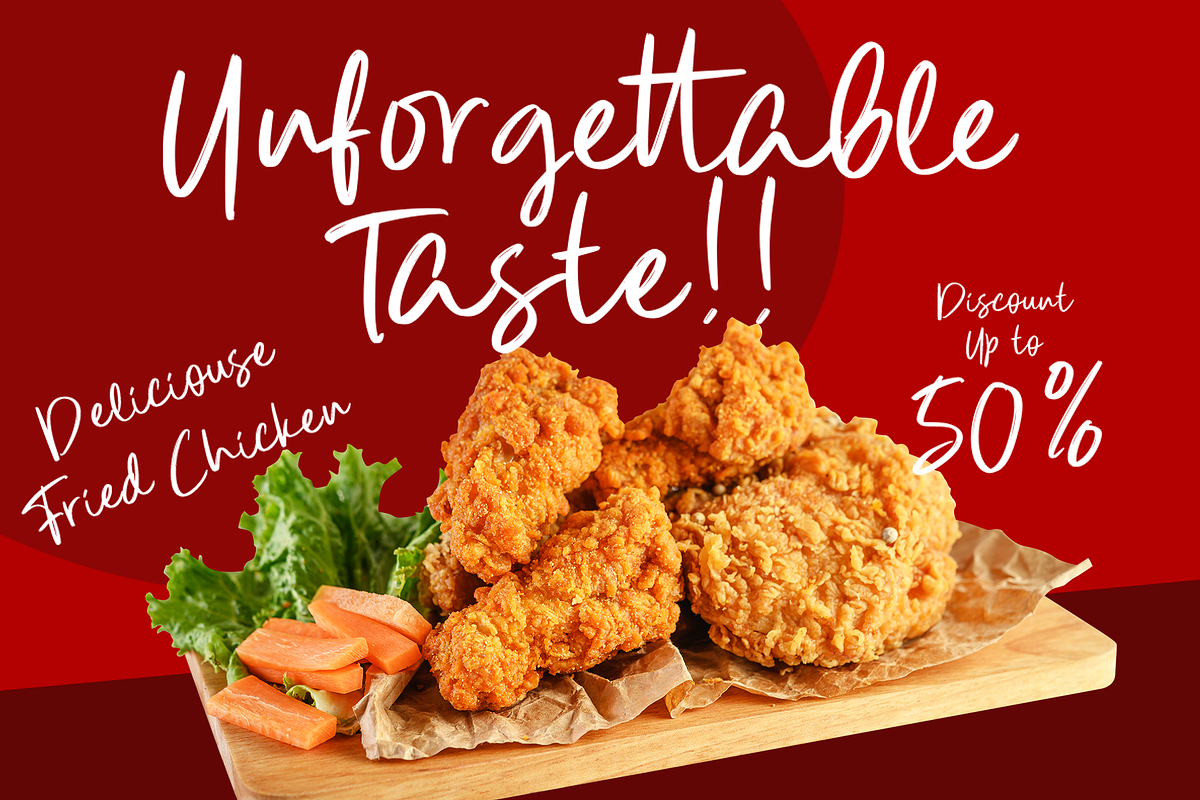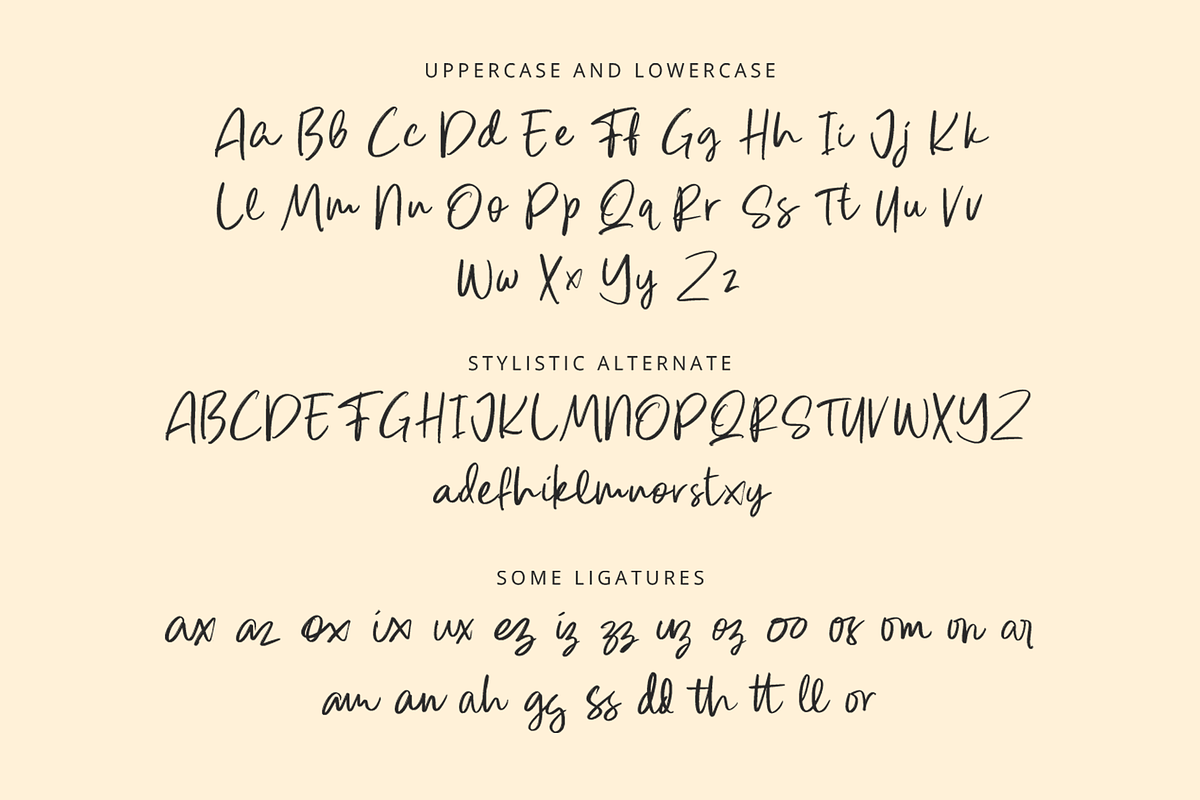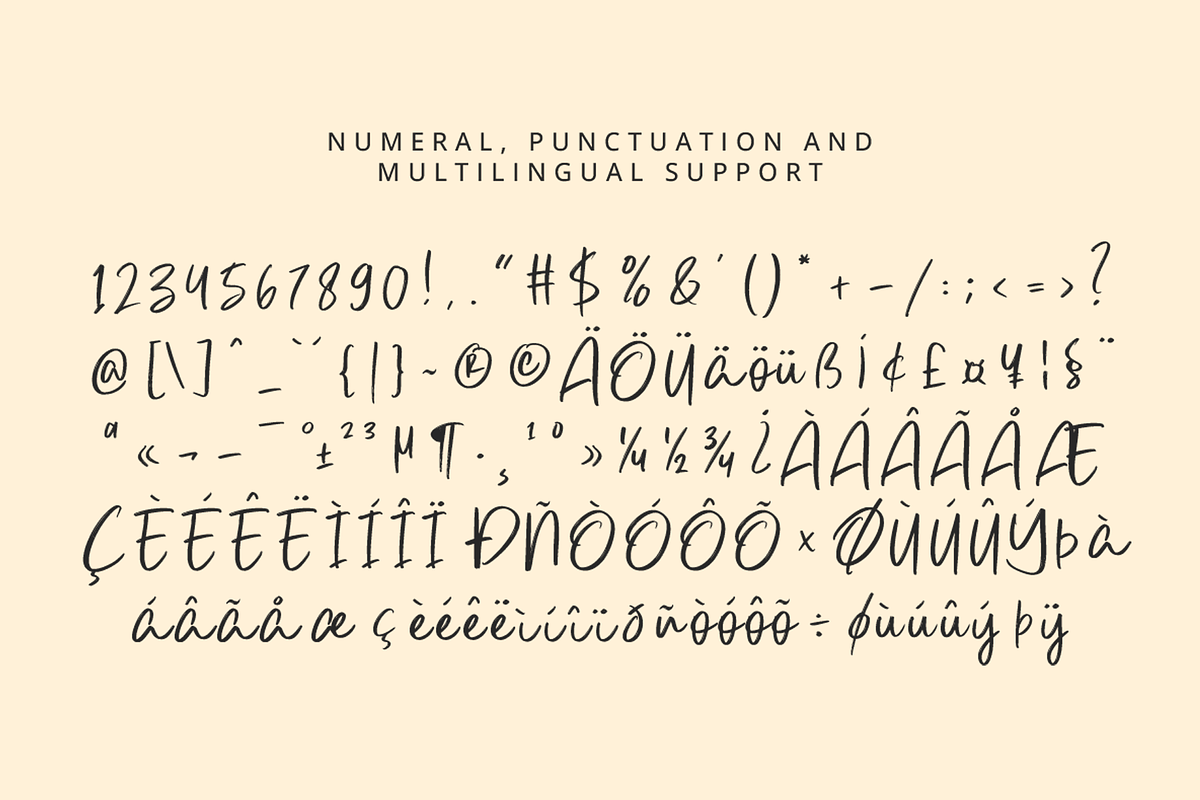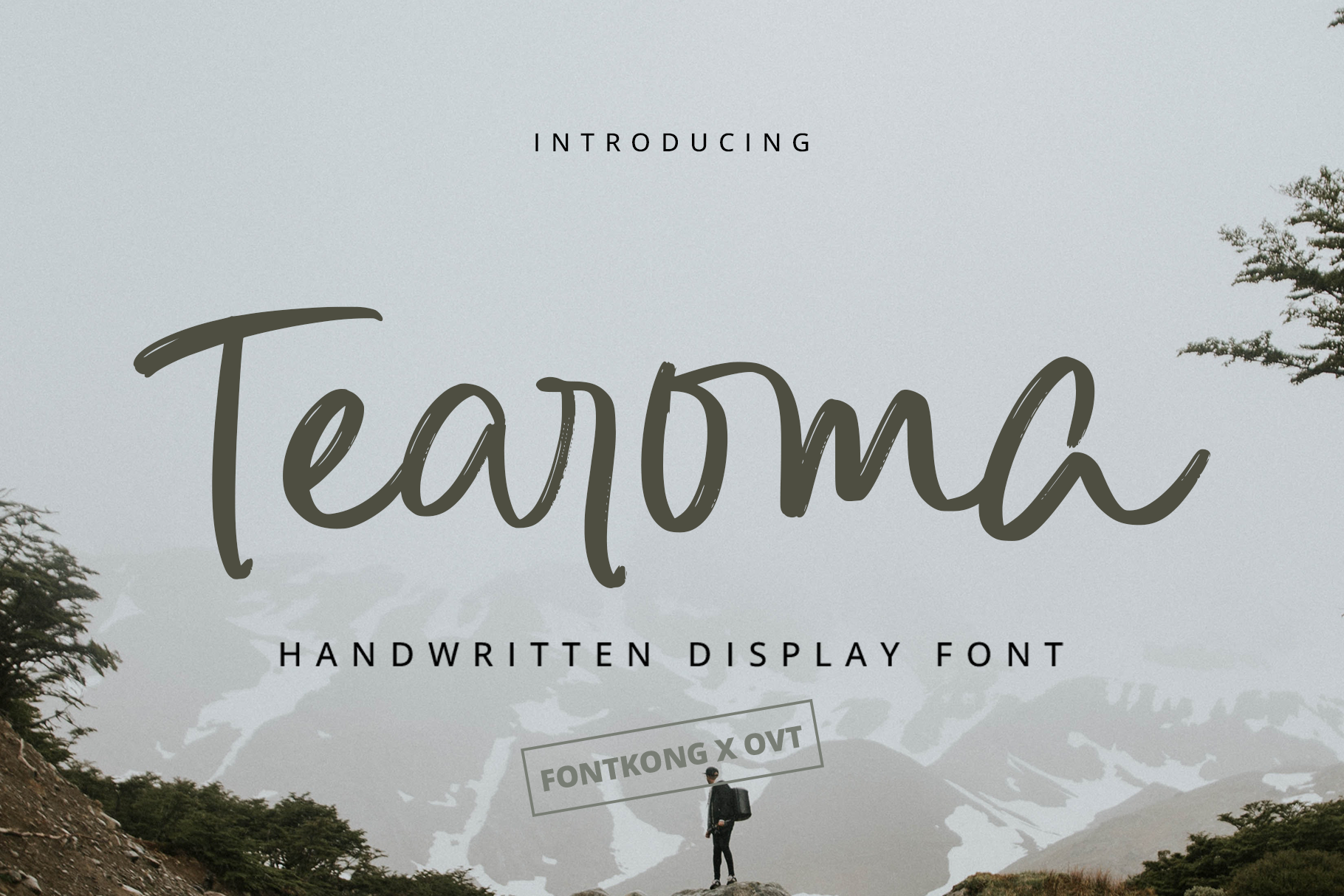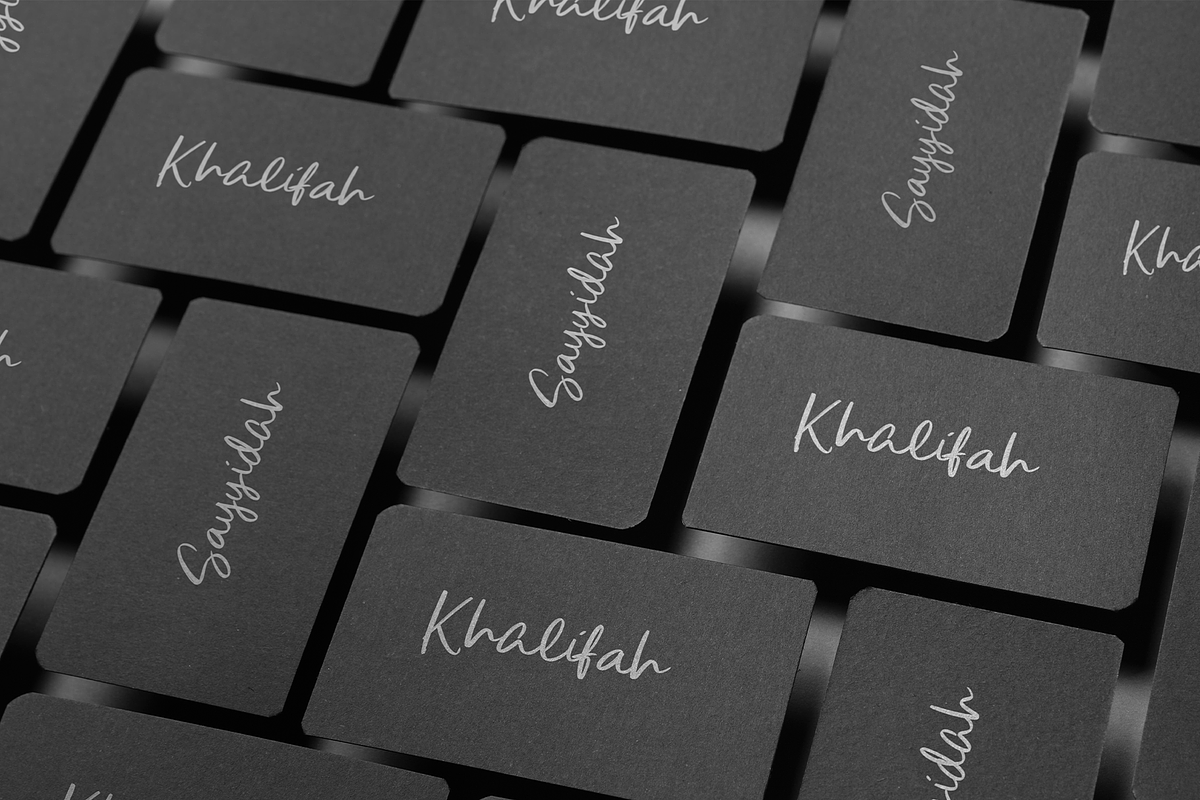
Tearoma - Handwritten Display Font
Meet "Tearoma," a handwritten display font that brings a personal and charming touch to your creative projects. With its flowing, organic strokes and distinctive style, Tearoma is perfect for adding warmth and personality to a wide range of applications, including invitations, greeting cards, posters, and branding materials.
Tearoma features a full set of uppercase and lowercase letters, numerals, punctuation, and special characters, ensuring you have everything you need to craft beautiful and cohesive designs. Its handwritten nature makes it ideal for projects that require a human touch, adding an element of authenticity and uniqueness.